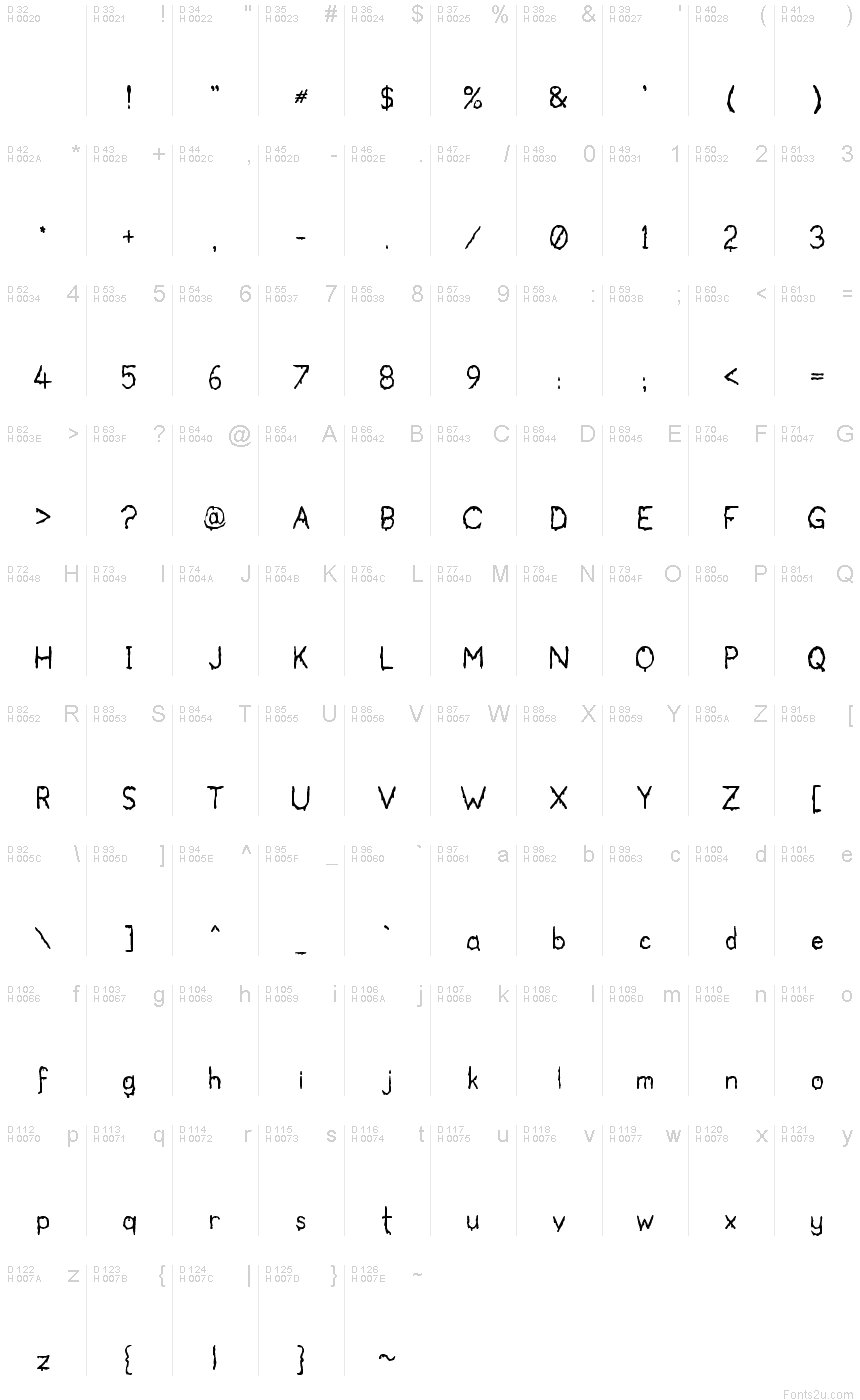
Bloodgutter 99
Bloodgutter 99 font by GemFonts98 is a free scary display font with the twitchy, ink-scratched look of a warning scrawled on a basement wall. Its uneven strokes, drooping cuts, and nervous spacing give every word a raw slasher-film pulse, so short headlines feel immediate and a little unhinged.
Using Bloodgutter 99 works beautifully for Halloween posters, haunted-house flyers, horror movie titles, punk album art, creepy game screens, escape-room branding, and dark social graphics. Keep it large and pair this free font with a plain sans serif like Inter or Arial so the rough texture stays sharp and the message still reads fast.